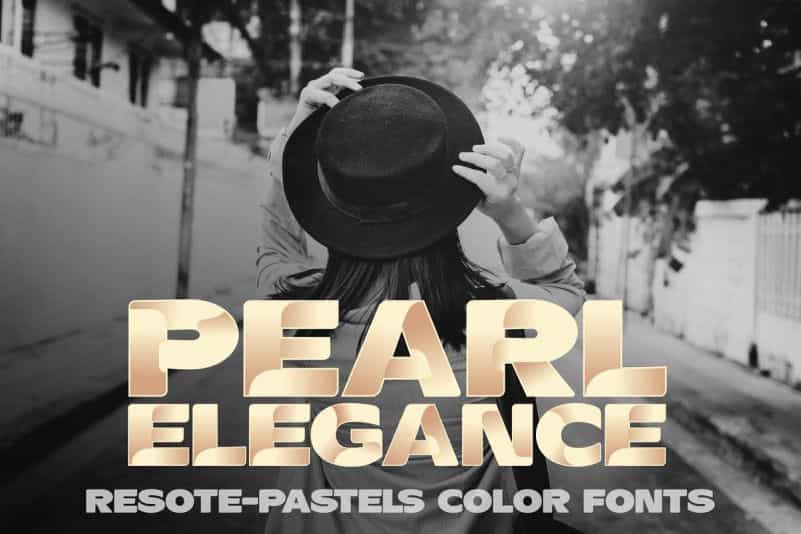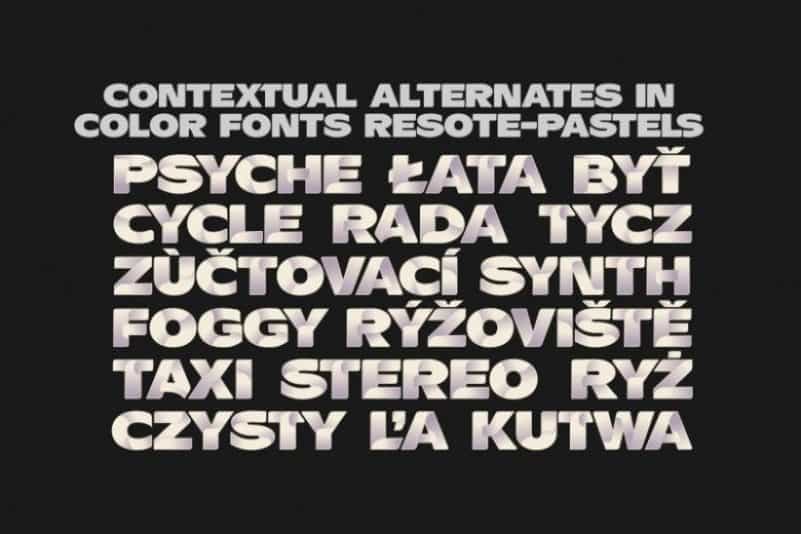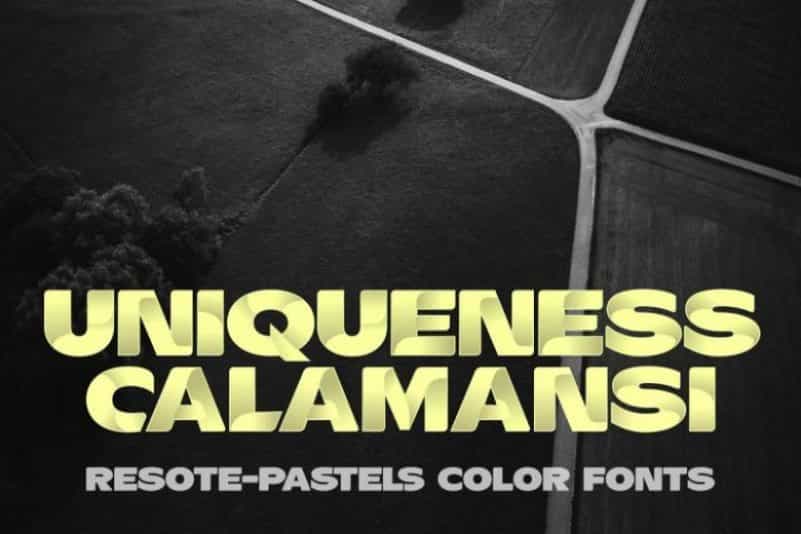
ResotE-Pastels Font is a unique set of unexpected characters, It’s was created inspired by the poetry of natural colors: Pearls, Mint, Lavender and Cherry Blossom – beauty of elegance, youthful, and romanticism respectively. Fully vector color Letters are useful for creating headers, banners or advertising slogans in any size.